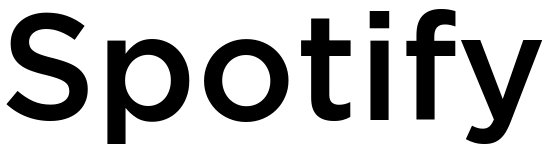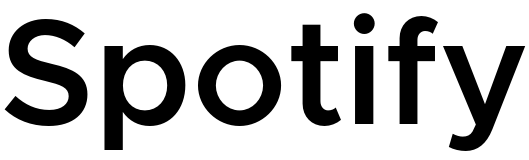
Spotify Font
Fonts in UseSpotify is a music streaming service that provides users with access to millions of songs and podcasts. Launched in 2006, Spotify allows users to search for and play music, create playlists, and discover new music through personalized recommendations.
The Spotify logo was most likely designed using Gotham Medium with minor changes to the dot on the "i". Gotham is a sans-serif typeface designed by American type designer Tobias Frere-Jones in 2000. There's also a free alternative called Metropolis by Chris Simpson.